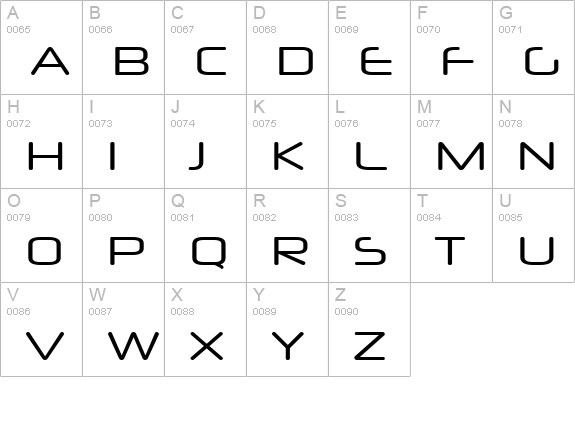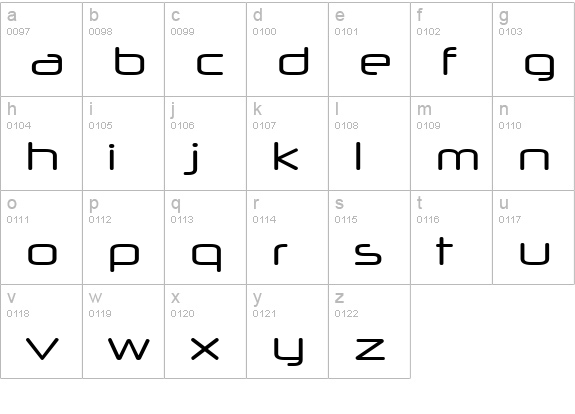
Neuropol X Free font is a futuristic and sleek typeface that is perfect for adding a modern touch to your design projects. With its clean lines and sharp edges, this font exudes a sense of technology and innovation. Whether you are working on a website, logo, or poster, Neuropol X Free font will bring a contemporary look to your creations. The best part about Neuropol X Free font is that it is completely free to download! You can easily access this stylish font at FontsMarket.com and start using it in your designs right away. Don't miss out on the opportunity to add a touch of sophistication to your projects with Neuropol X Free font. Download it now and let your creativity shine!